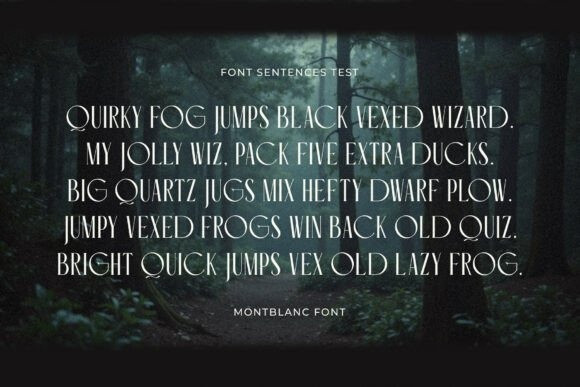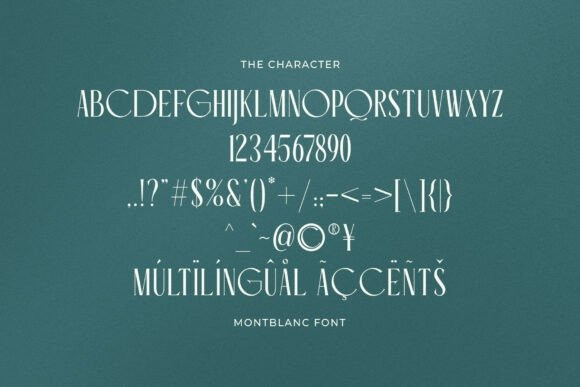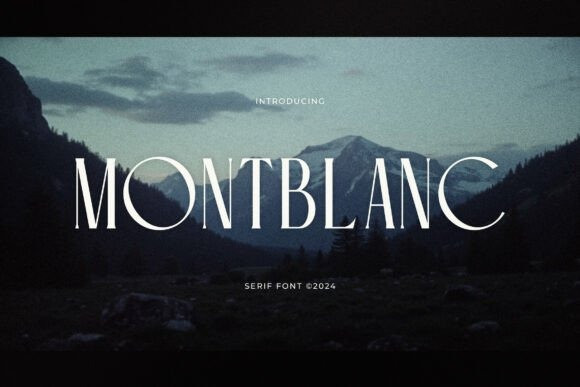
Montblanc Font
Montblanc Font is a refined serif typeface that exudes elegance and sophistication. Its tall, flowing silhouettes are designed to evoke a sense of grandeur and timeless beauty. Perfect for luxury brands, editorial design and high-end projects, Montblanc commands attention with its delicate balance of bold and thin strokes.